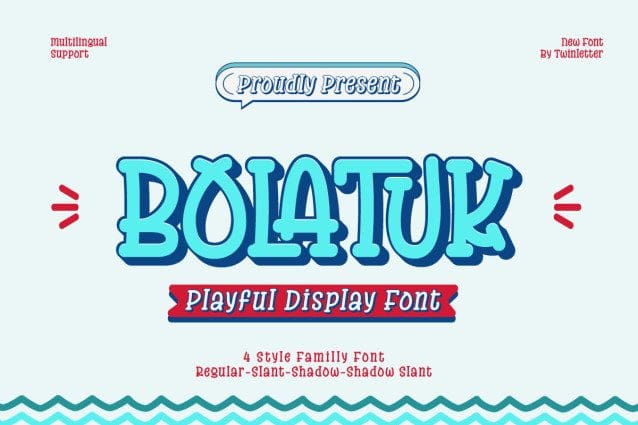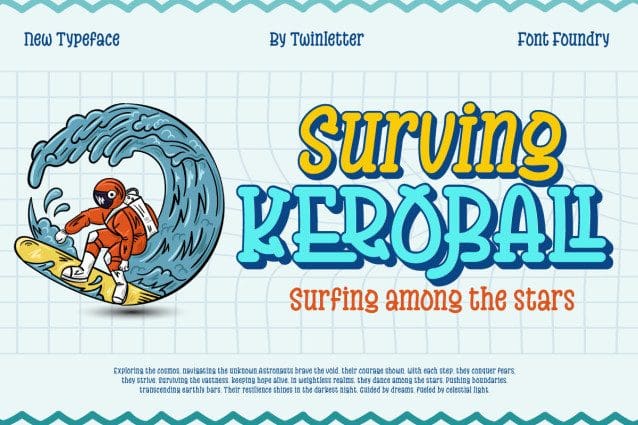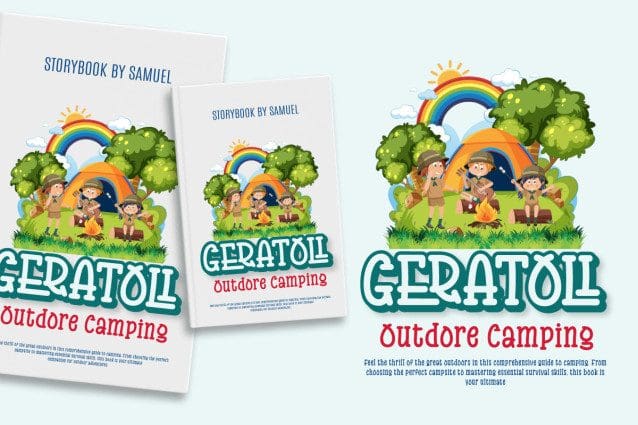
Bolatuk Playful Font
Bolatuk Playful Font a playful display font bursting with whimsy and charm. Each letter is a burst of color and joy, infusing your designs with a sense of playfulness and fun. Ideal for children’s books, posters, or cheerful branding, Bolatuk adds a spark of imagination to every project, turning ordinary into extraordinary.